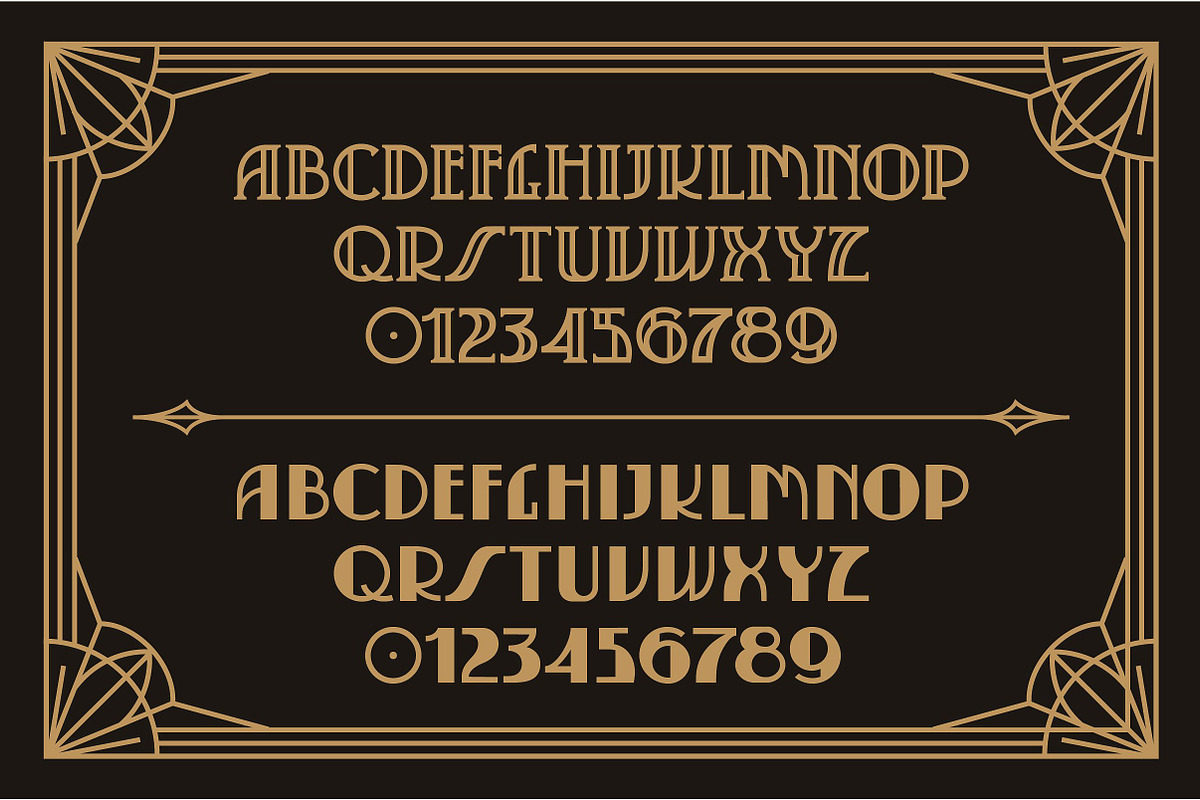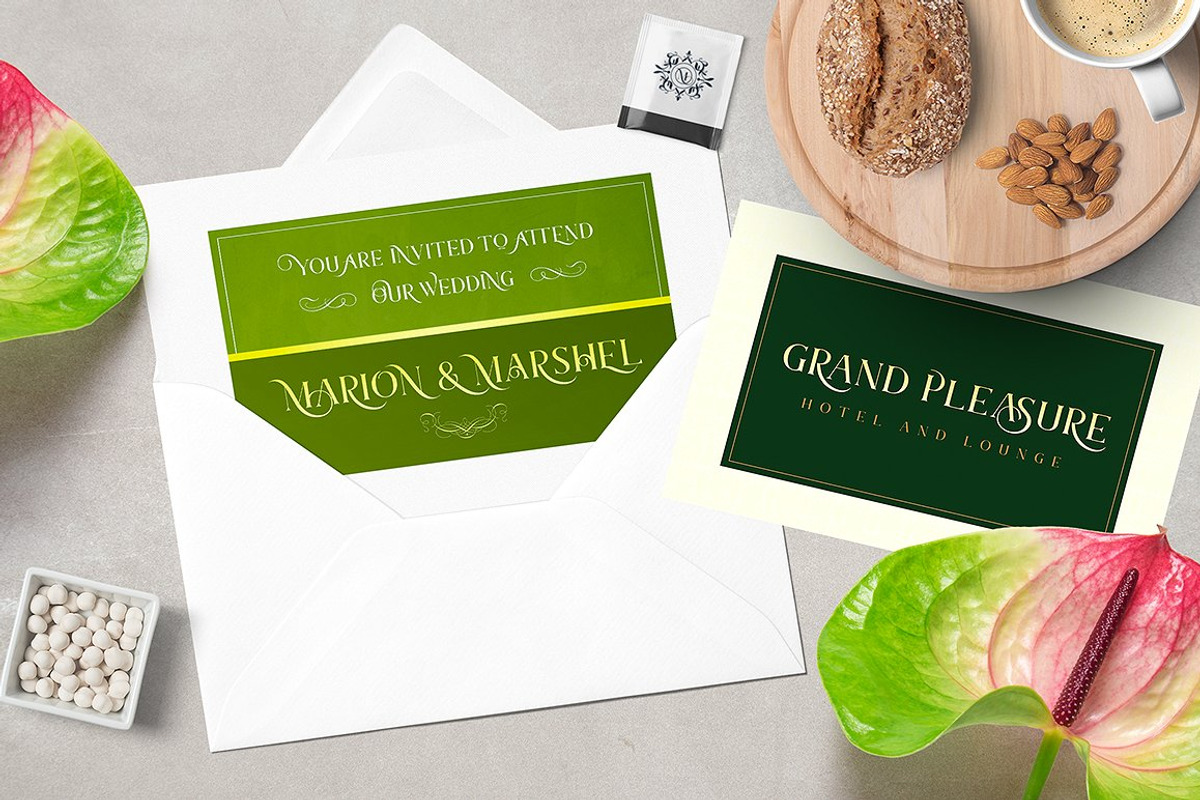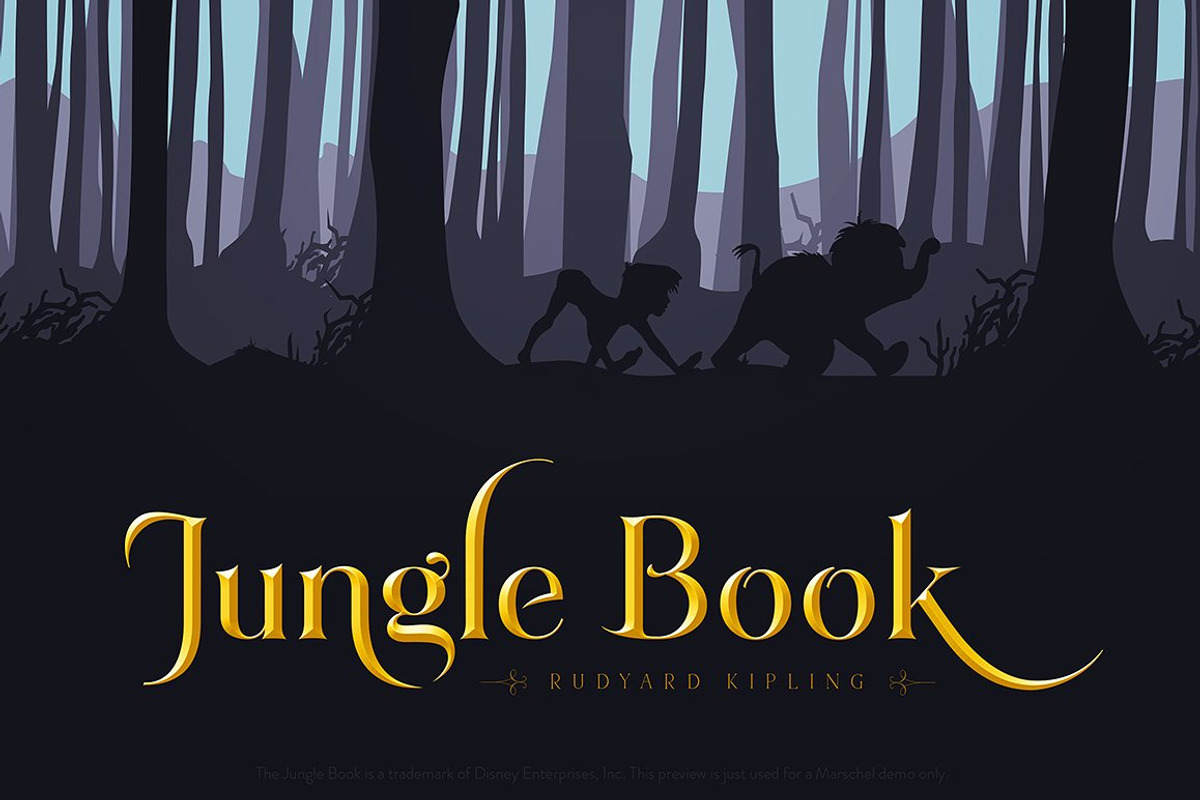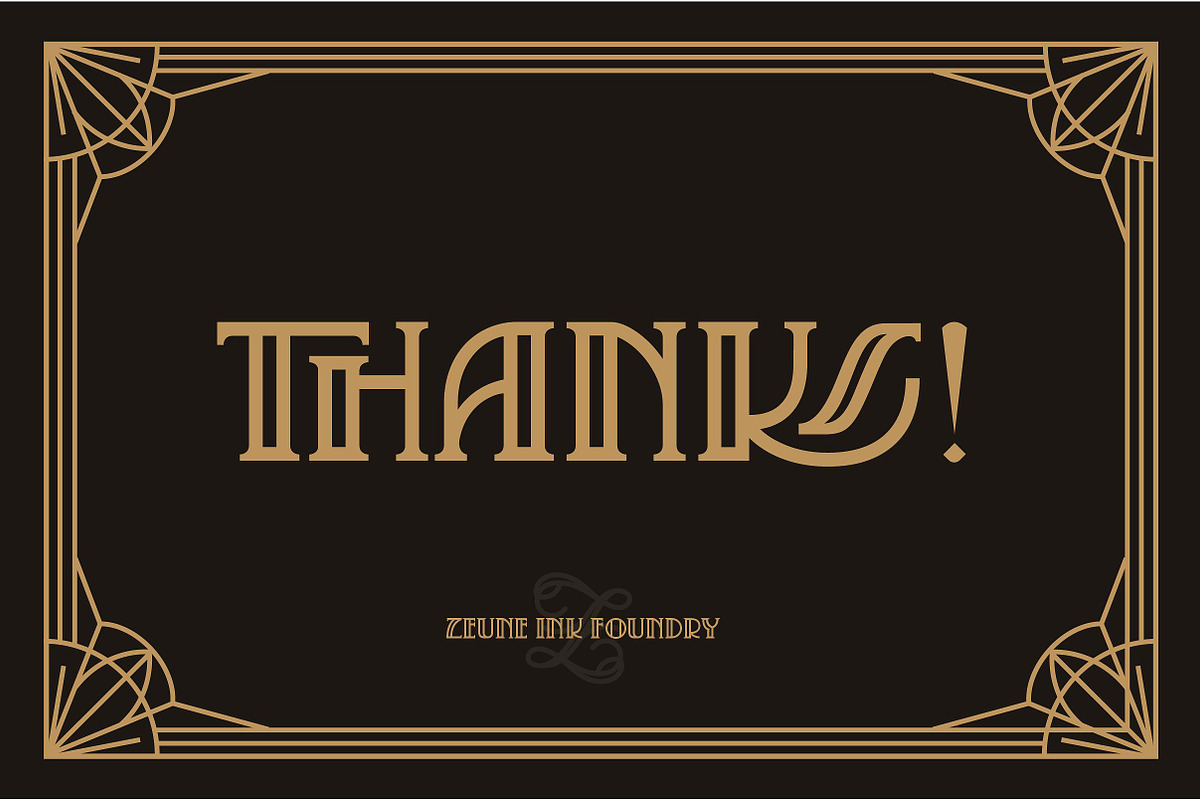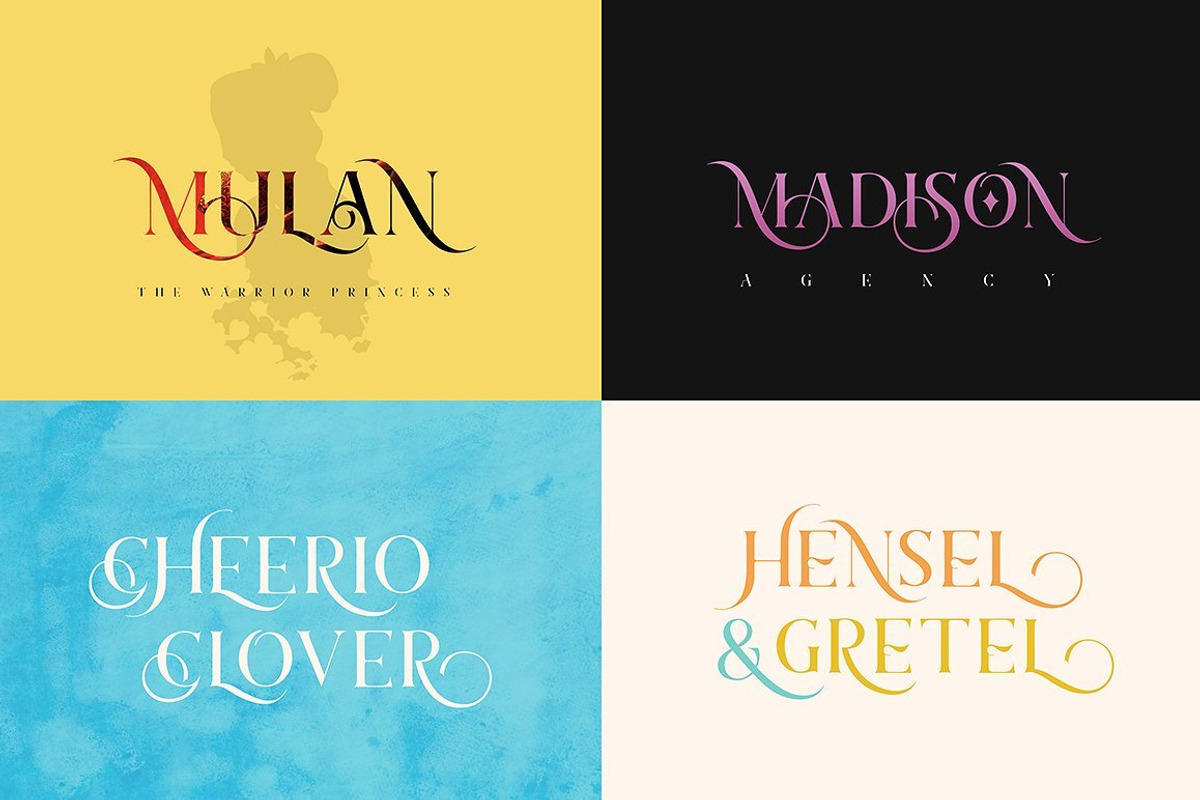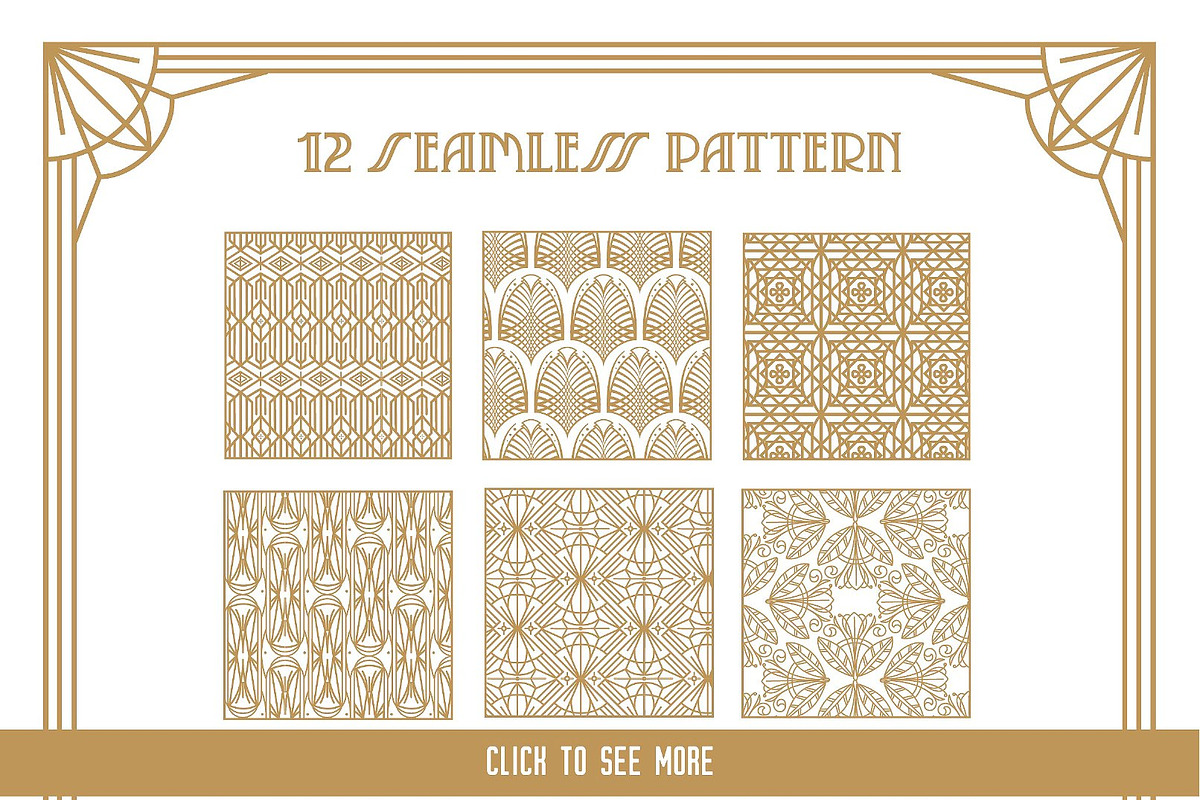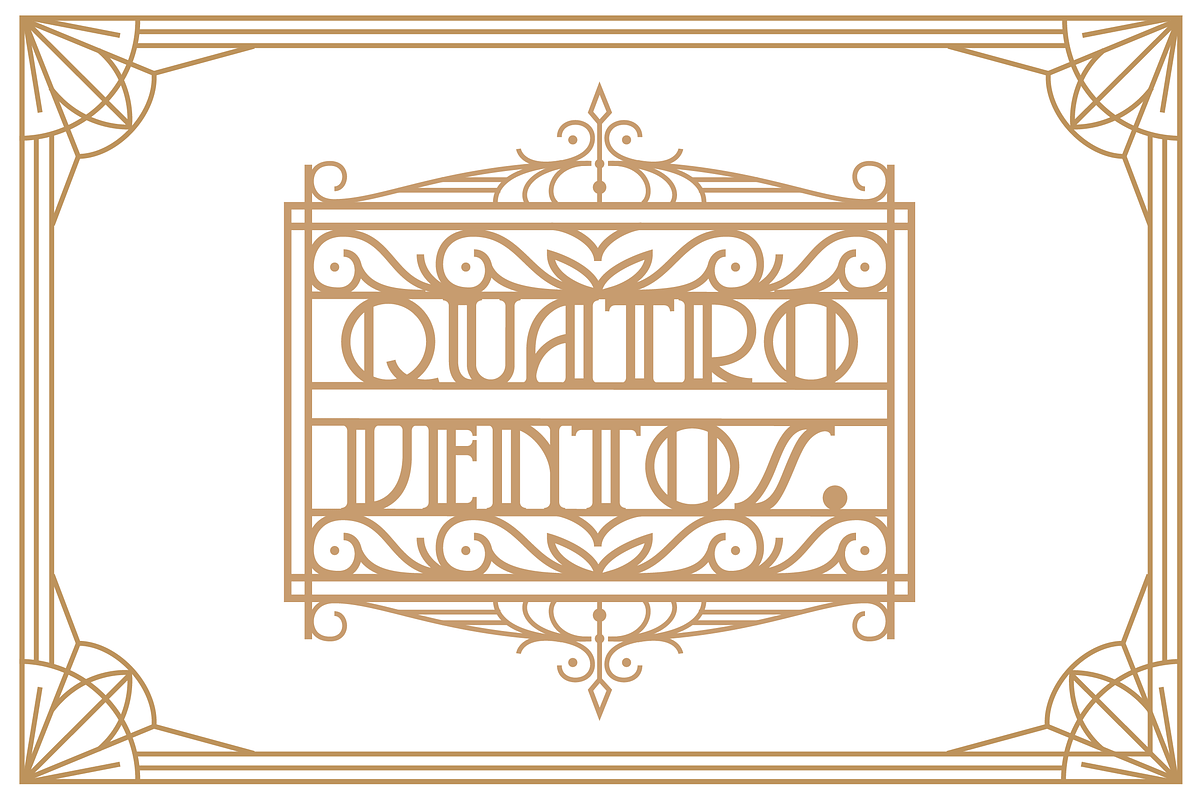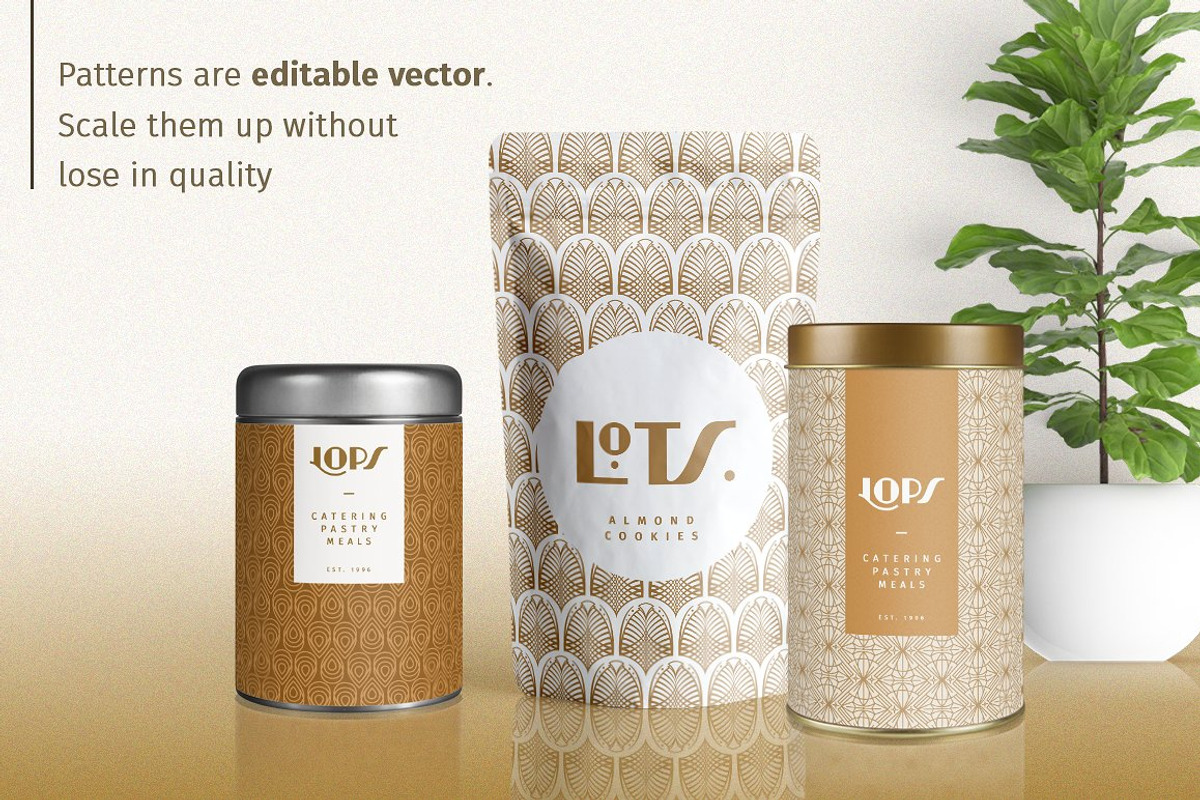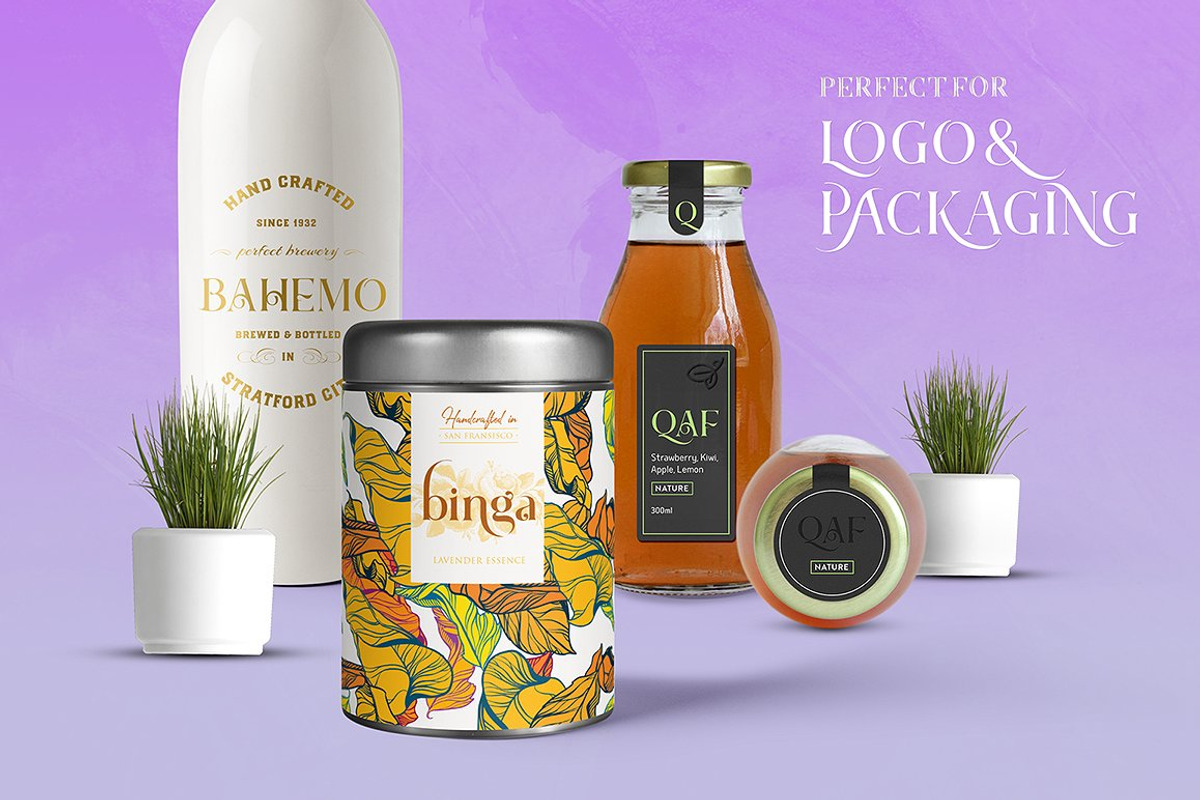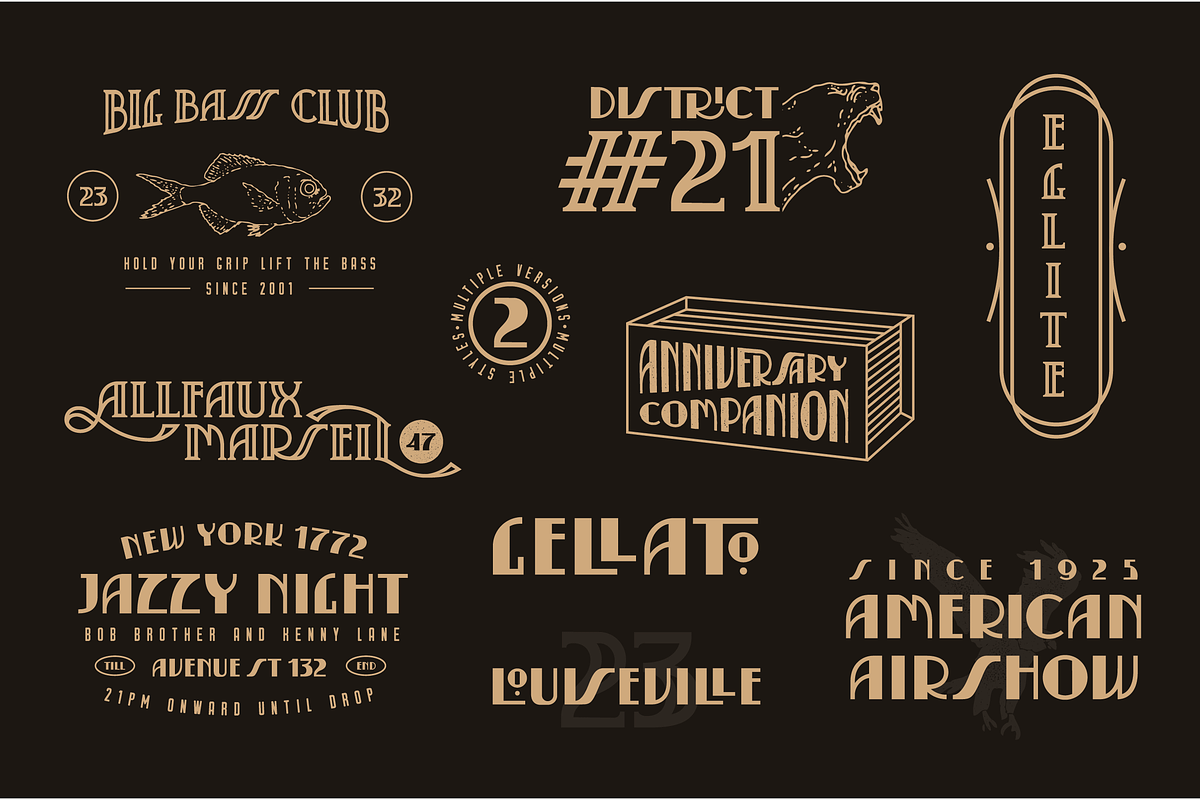
This exclusive collection brings together some of the greatest fonts from Zeune Ink Foundry.
This package contains 4 best seller fonts from Zeune Ink Foundry, Wallington Pro, Hummington, Marschel Pro and our newest typeface, Serendior. All these typefaces have amazing features that will improve the quality of your project. They are divided into several OpenType features such as Ligatures, Contextual alternates, Old Style Numeric and some astonishing special characters that allows you to mix and match pairs of letters to fit your design. This variety encourages unusual and extroverted creation in lettering design.
The typefaces offers numerous combination possibilities between the basic glyphs set and stylistic sets. The stylistic sets are alternate alphabets that can be accessed with any softwares, best with the opentype savvy programs such as Adobe Illustrator, Adobe Photoshop CC, Affinity Designer, CorelDraw or Adobe InDesign. They help you to present your work in an eye-catching and beautiful way, ensuring your designs always stand out from the crowd.
Wallington Pro
This typeface is a decorative-serif font embodying vintage and elegant curves with functional structure. Style is adopted from Old English cultures with their descendants around mid-12th century and Art nouveau in 19th century, it was inspired by natural forms and structures and the curved lines. Crafted with love and easy-to-read letter design.
Hummington
Hummington is an elegant script typeface with a ton of OpenType features, which will help make your designs and digital creations stand out. This font is consist of 700+ characters, 16+ stylistic set alternates, elegant swashes, and many unique features. Was crafted with gorgeous swashes connections make combining letters easier, more fun, and outstandingly beautiful.
Marschel Pro
Marschel is an elegant and classy roman typeface with unique curves and consist of amazing stylistic sets characters, more than 400+ glyphs including special characters, unique ligatures and allow you to mix and match so much pairs of letters. It’s perfect for weddings, headline, movie title, logos, branding, invitations, quotes, social media, websites, magazine and so much more.
Serendior
Inspired by Art Deco movement and its decorative arts that originated in the 1920s, serendior consists of two styles, Block and Stroke, crafted with care with a bunch of special character sets. Serendior came with 12 beautiful patterns that made of one vintage solid color, you can use them for various projects, the patterns are easy to scale up or down without a loss in quality.